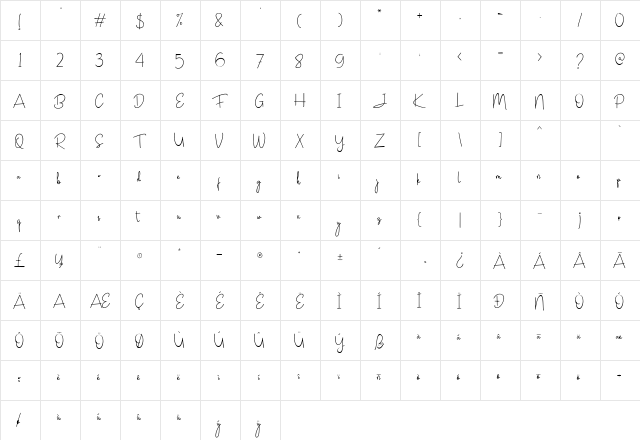
Janesville Script Regular
| Foundry | Fargun Studio |
| Designer | Fargun Studio |
Design Context for Janesville Script Typeface
Janesville Script brings a calligraphic fluidity to the page — its connecting strokes and expressive curves give it an unmistakably human quality.
Font Pairing: Combine Janesville Script with a simple geometric sans for maximum contrast — the tension between flowing curves and clean structure is a classic typographic pairing.
Pro Tip: Pair Janesville Script with a clean sans-serif for supporting text. The contrast between fluid script and geometric structure creates an elegant typographic hierarchy.